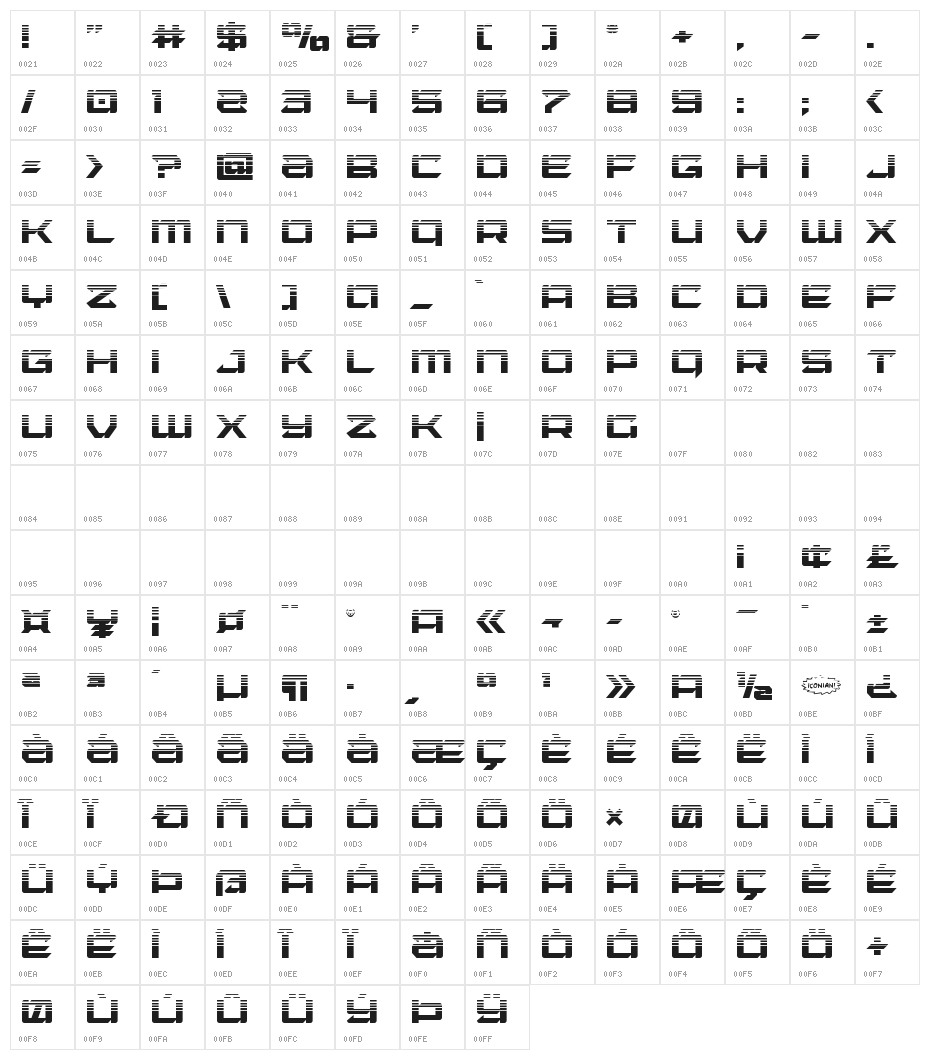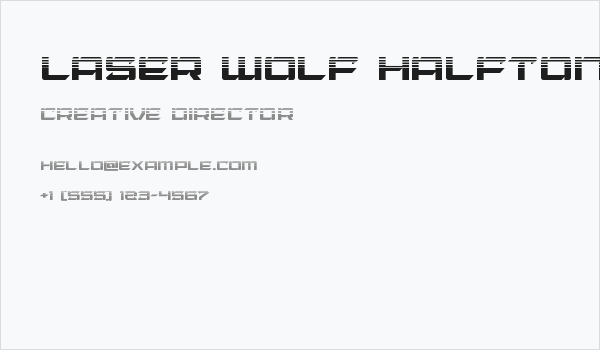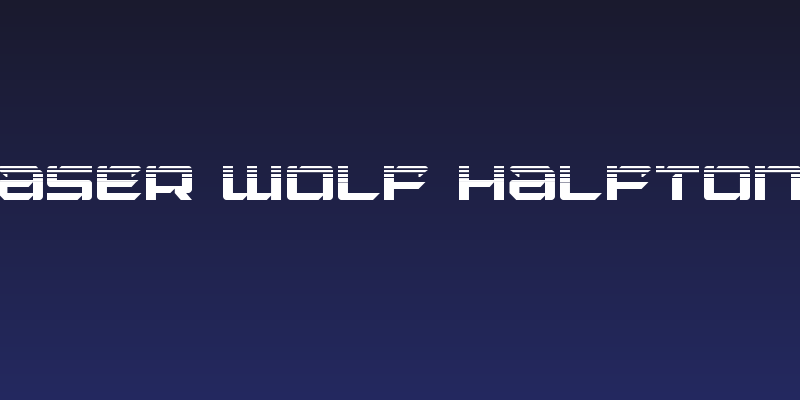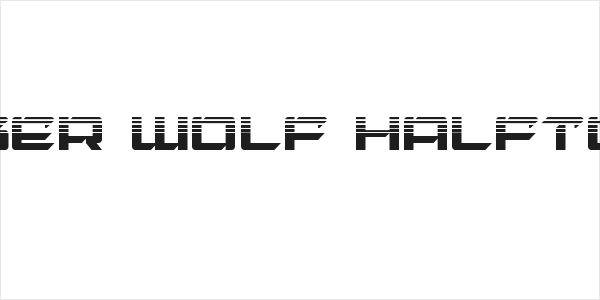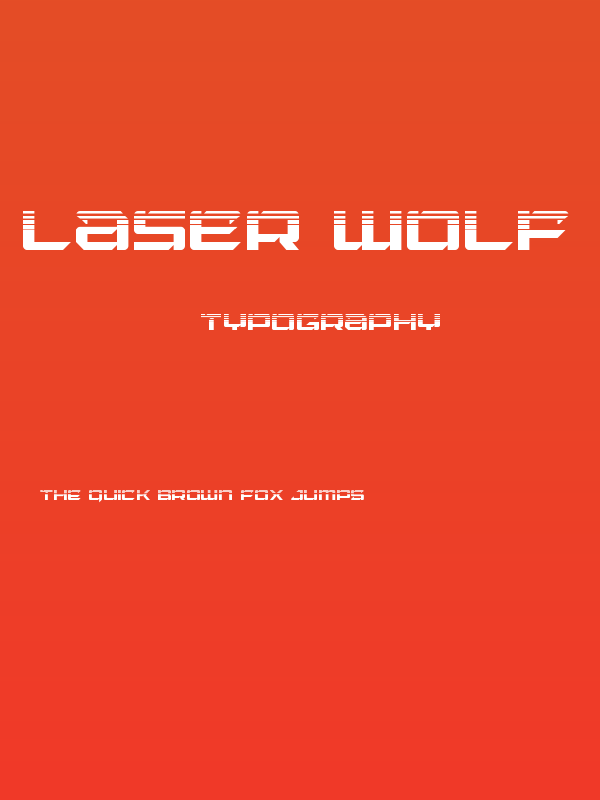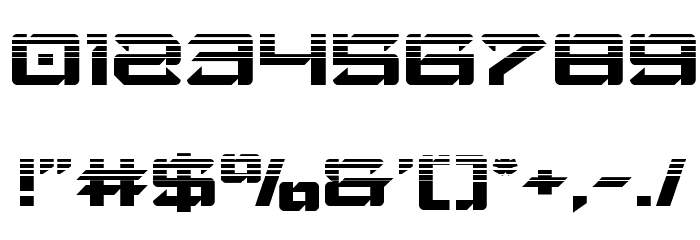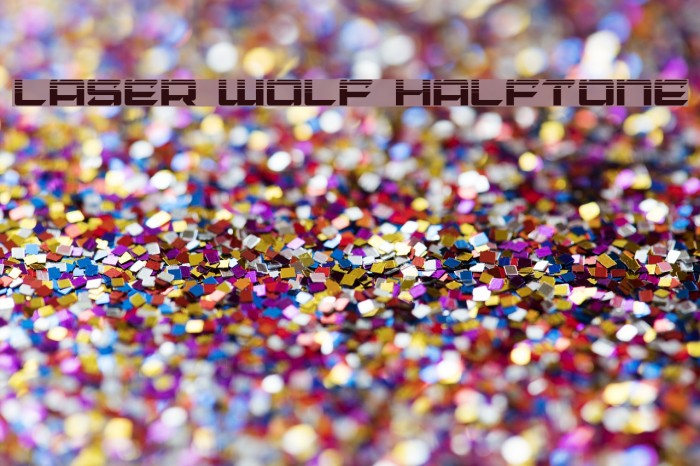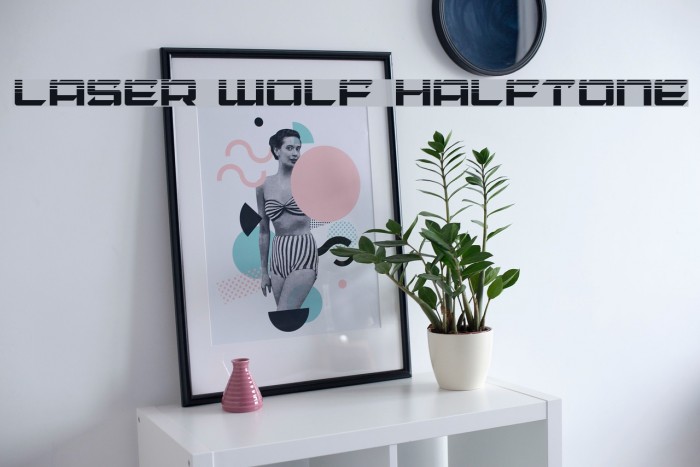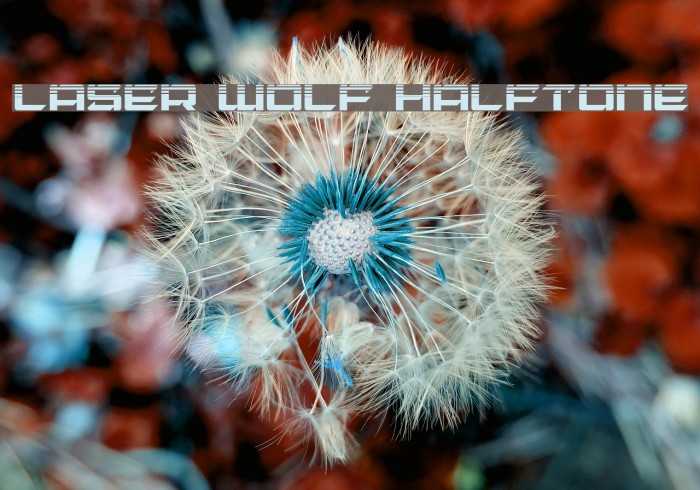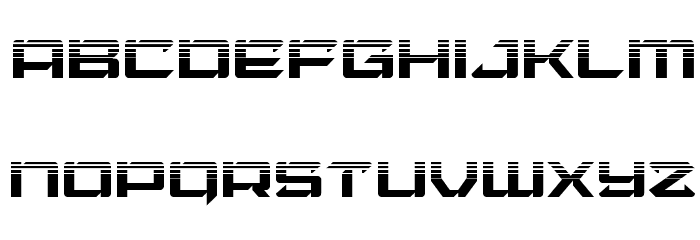
Laser Wolf Halftone Font
This font features a futuristic and digital aesthetic, characterized by its bold, geometric shapes and halftone pattern. The letters are constructed with a combination of solid and dotted lines, creating a dynamic visual effect that suggests movement and technology. The uppercase and lowercase letters maintain a consistent style, with angular edges and a blocky appearance. The numerals and special characters follow the same design principles, ensuring a cohesive look across all glyphs. This font's unique style makes it stand out, ideal for projects that require a modern and tech-savvy appearance.
| Proposed Projects | Ideal for tech branding, digital media, video game graphics, and sci-fi themed projects. |